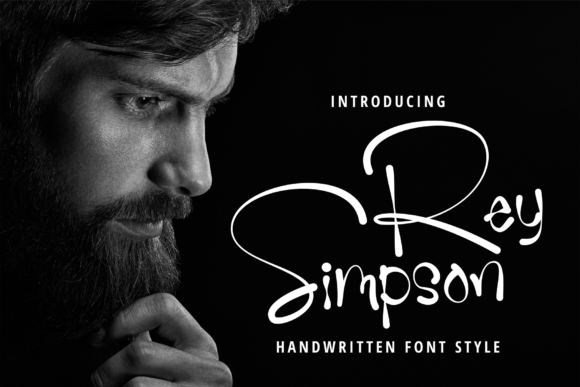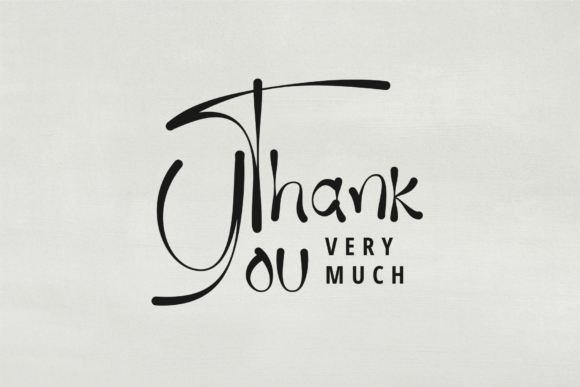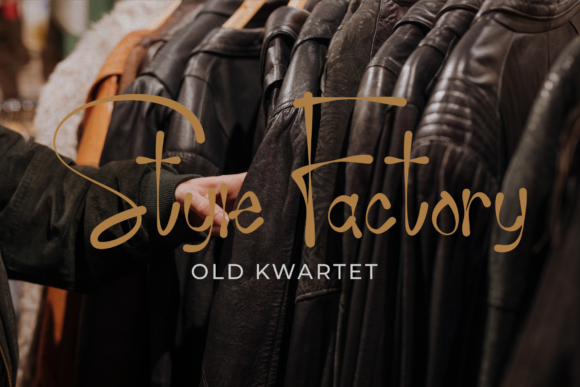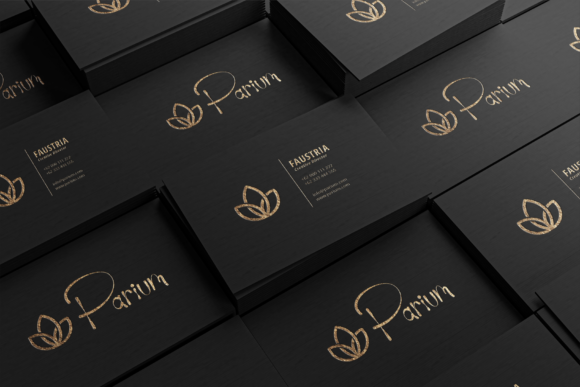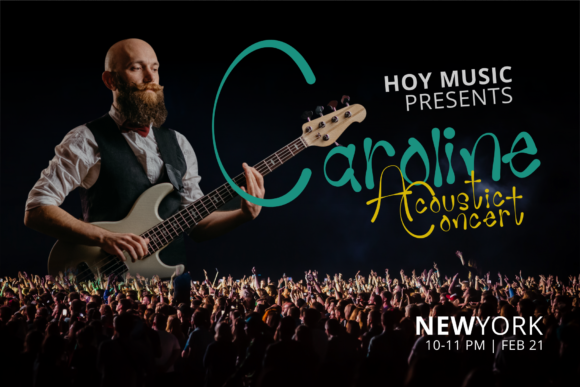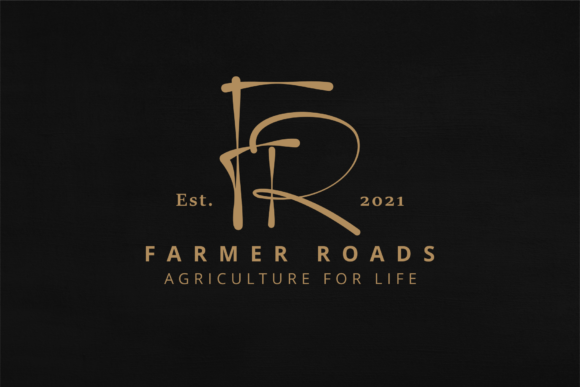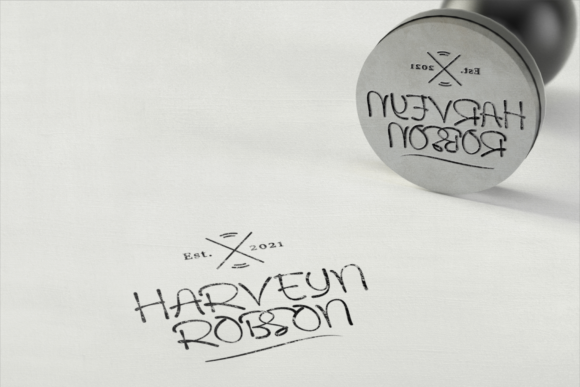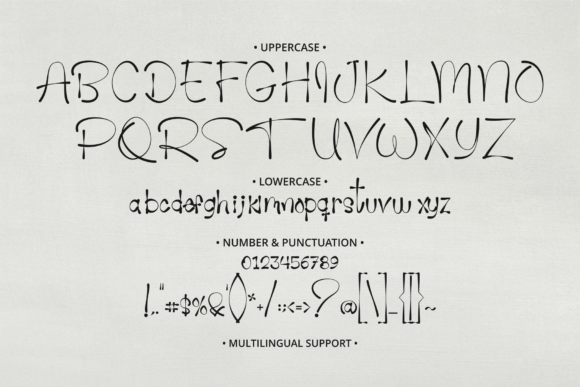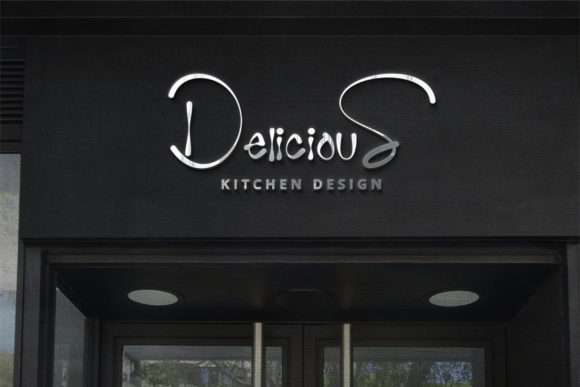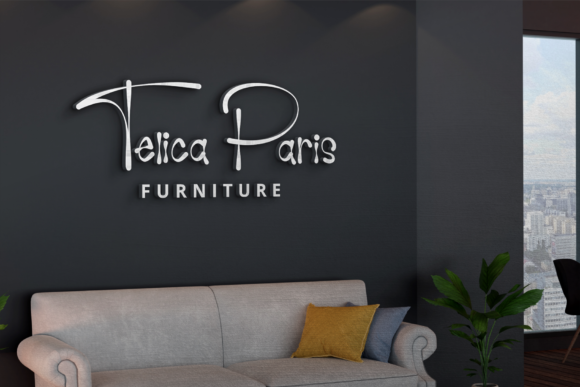
Rey Simpson Font
About Rey Simpson Font
Rey Simpson is a simple and cute handwritten font. It is defined by smooth and relaxed curves and is perfect for fashion branding or editorial designs. Add it confidently to your projects, and you will love the results.